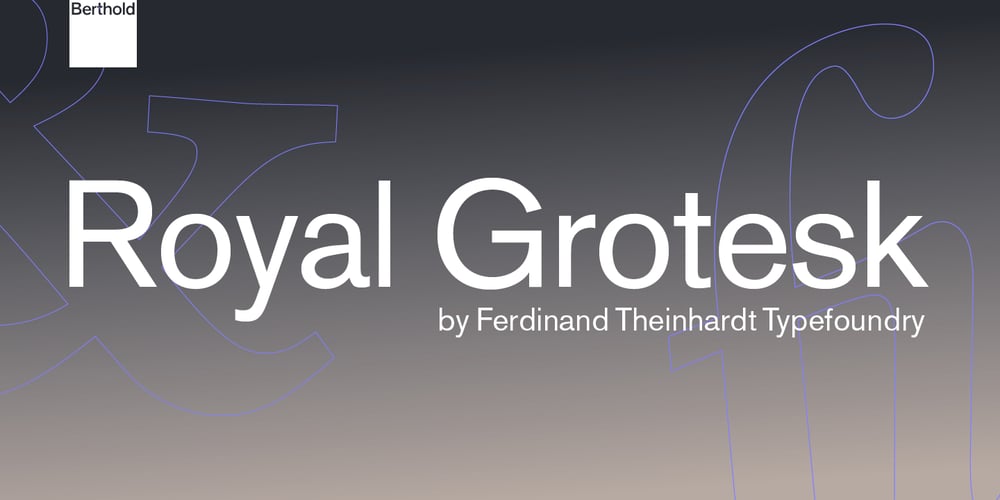
Royal Grotesk W1G Font Family was designed by Ferdinand Theinhardt Typefoundry and published by Berthold. Royal Grotesk W1G contains 4 styles and family package options. Berthold first published Akzidenz-Grotesk in 1896. The design originates from Royal Grotesk light by Ferdinand Theinhardt who also supplied the regular, medium and bold weights.